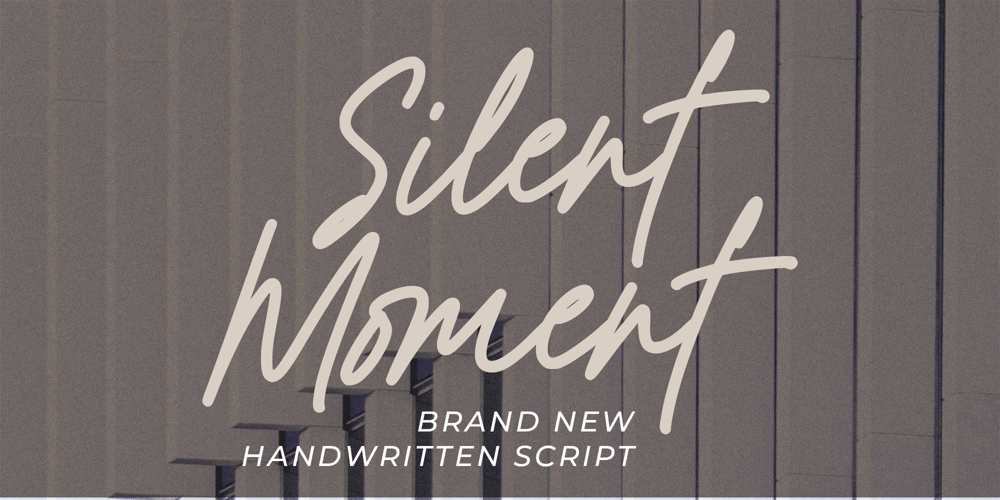
Silent Moment Font Family was designed by Muhammad Mujibulloh and published by MJB Letters. Silent Moment contains 1 styles and family package options. Silent Moment is a chic and versatile Handwritten Script font that effortlessly blends casual style with modern elegance. Its stylish brush strokes make it ideal for logos, fashion projects, branding, packaging, posters, quotes, weddings, and more.Designed with creativity in mind, Silent Moment features ligatures, underline swashes, and is fully PUA encoded, giving you the flexibility to create stunning designs with ease. The font also supports multiple languages, making it accessible for global use. Silent Moment is the perfect addition to any design project.